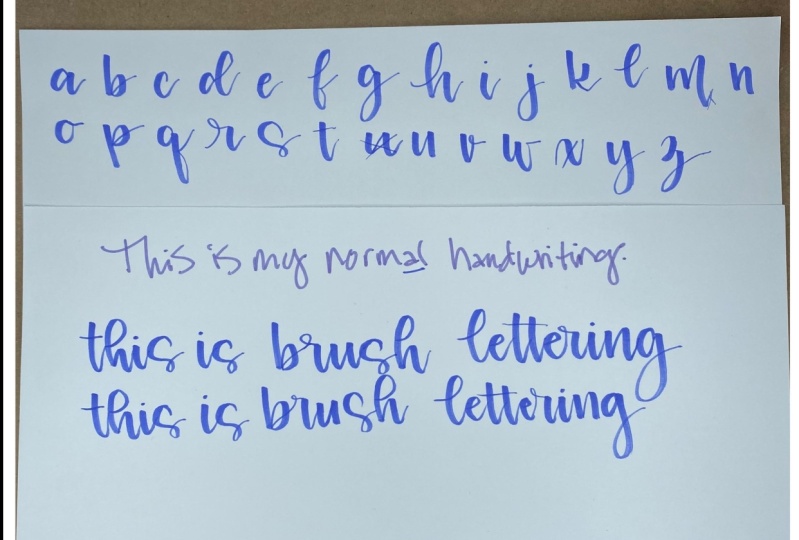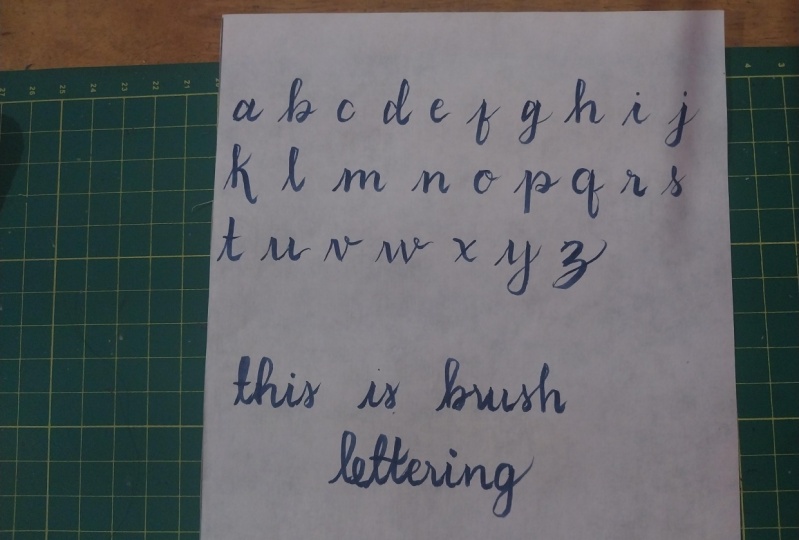
a brush pen, right? And you all know your
basic strokes because you practice them all
the time. I'm sure. You know, your upstroke,
your downstroke, all your turns in your loops, you know all that
you've been practicing. So we're going to take all
those basic skills and we're going to turn them into
your signature font. Most students
aren't empowered to do this because they
think that they're supposed to copy and this
holds back your development. So I say hurry and develop your signature font so that
you can grow and develop. I'm not going to tell you what your alphabet should look like. You're going to decide
that and what's your hand naturally wants to do. But I'm here to help. I'm going to offer suggestions as we go through the alphabet. But in the end, you're going to decide what your
font looks like. And if you've done that today, then you have completed
the class project. Finding your style can be frustrating and even at
times feel impossible. My goal is to help you
avoid all that anxiety by showing you my process for teaching people how
to find their style. By the end of this class, you will have created
your own signature style that will feel natural
and easy to use. So let's ditch the struggle
and go get started.
2. Two Important Things: There are two important
things that I need to tell you about that are at
the core of how I teach. And this is probably going to be the most important thing that I say throughout this
entire course. So the first one is, you will have more
success if you embrace your own handwriting as you
learn modern calligraphy. And number two is creating
your signature font. Instead of copying other
people's lettering, will develop your skills quicker than you could
have ever imagined. Let me quickly
explain what I mean and how it relates
to our lesson today. First, let me talk about
embracing your own handwriting. Since the first time you
picked up a pencil as a child and learned
how to write, your hand was inclined to
move in a certain way, and this resulted in your unique handwriting when you fight your natural inclination, this can bring confusion
and frustration. Second is creating
your signature font. So when you combine the rules of calligraphy with what your
hand naturally wants to do, you create your signature font. And your signature
font is unique to you, just like your handwriting is. Don't get me wrong.
I love how inclusive the lettering
community is and how freely we share our ideas. But there will be a time
for you to borrow from other letters once you have
developed your skills. And this is the
foundation of how I teach and what we are going
to be diving into today. It's time for you to meet Oscar. Oscar is my signature
style, and as you can see, it's kinda wild, little
bit of a crazy guy, but I love him dearly. So the reason I wanted
to introduce you to Oscar is because many, many years ago when I was creating my own signature style, I was in the throes
of frustration as I was trying to learn
modern calligraphy. I have come from a traditional
calligraphy background where everything
had to be perfect and there was an
exact way to do it. And I kept falling back into that and getting really
frustrated about it. And so I would practice
and practice and all these practice papers
would end up in the trash. And so that's where
Oscar got his name. Because Oscar always
ends up in the trash. And I know that super cheesy now because this was
like 20 years ago. But I still would never change it because it's a big part of my personal journey and how
I've gotten here today. One final thing I need to say about Oscar before
we get started is Oscar has changed countless times over the
last couple of decades. And by no means was this refined when I first
created it 20 years ago, your signature font is going
to change and grow to. So today is about
discovery and inquiry, and it's not about perfection. So keep that in mind
and let's get started.
3. Step 1 Part 1, A - F: All right, everyone, let's
get started with step one. In step one, we
are going to take our own handwriting
and we're going to turn it into brush lettering. The first thing I want
you guys to do is to grab your project paper. I'm going to have mine in landscape orientation because I tend to write a little bit bigger and I want to
have room later for when we get to the brush,
brush lettering part. So I'm gonna be using tom
bows twin tone marker. I love the little felt-tip end. So go ahead and grab
your brush pen or your dip pen yet grab
your monoline pen. And at the top of
your project paper, Let's go ahead and write. This is my normal handwriting. And you don't have to write it. Nicer or worst. However you would write today. Writing. It looks about right? So at this point, let's go ahead and put
away our monoline pens. And we are going to grab
our brush pens and we're going to turn our handwriting
now into brush lettering. Let's grab a piece
of practice paper. If you want to set your
project paper aside, you can do that or
if you want to have your handwriting to
look at, that's fine. But grab your brush pen. Now, whichever one
you want to use, Wanted to reorient
myself a little bit. So hopefully you guys can see me writing a little bit better. But what we're gonna do is we're gonna go and we're going to take each of these letters
with our brush pen, and we're just going
to finesse them a little bit until we find
something that we'd like. We're probably going to use several pieces of
practice paper, so just be prepared for that. But let's start
with the letter a. So as you can see, I don't know how you
guys write your A's, but I have a tendency
to write my a this way. And I don't actually
care for that that much. As far as like calligraphy goes. Just the look, I don't
like this kind of a, necessarily for my calligraphy. But let's go ahead and
play with some ideas. So this is how I would
probably normally write it. Zero. Some of my A's are there
isn't a pretty in-line. So maybe try it in a different shape and see if you can find a different
shape that you like. Or if there's another way, there are several
letters like our z, those type of letters
that can be written in different ways also. So try some different
ways of writing that you're a and I want you to just try several different ways. Whatever comes to mind. I was like leaf, but maybe I don't connect the
top and bottom. Maybe I make it really round. In a really round with a tail. There's all kinds of
things you can do. So go ahead and spend a few, a few minutes, whatever. Pause the video if
you want to just write out several A's. And then once
you've written out, I would say three to ten A's. Go back through. I haven't really written
very many that I like, but I'm go back through and my lettering stairwell and see which ones you like
and don't like. So this is still the
point I wanna make two is this is still
my handwriting, even though I'm finessing it a little bit and it's
very sloppy today, which is perfect for
what we're doing. So look at each of your A's and notice which ones you
like and you don't like. So what I like to do
when I'm creating a font is I let her in a certain
way and we'll get to why. You'll understand why
here in a little bit. But I write the
letter a lot of times and how I think I might
like it and maybe some different
variations of that. And then I go through
and pick my favorite. So when I'm creating a
font icon usually have an idea of what I want
the font to look like. So I'll write it, how I think I might
want it to look, but then I'll also write some
that aren't how I liked to. Maybe want to, want
it to look better, you know, sparking my
imagination, I guess. So. Now that we've done that, go through and I honestly, you don't have to
do it like I do, but I cross out the
ones I don't like. Um, I actually like, I don't mind the
disconnection here, but this just came out bad and I just don't
want to look at it. So cross out the
ones you don't like. This one's barely
calligraphy and then circle the ones
you do like an, I actually thought these little chunky guys came out cute. But this one is
definitely more my style. So some of them I don't
do anything with if I'm indifferent and I kind of like this even though
I didn't do the top, how I probably would. So once you've done
that and you're honing in a little
bit on what you like, maybe see what you
like about it. This little chubby
guy is real cute. I like the separation
right here. So just notice those
kind of things. And when this is very
Oscar, this one is. So that's why I'm
inclined to that one. If you need to do a
couple more examples like maybe I do want to see a chunky one disconnected or something like that
with the lower part, the lower I call them tails. The lower tail,
something like that. Maybe try a few more,
but finalize and hone in on which one
is your favorite. And just note that now that
you guys know how this goes, we're going to move a
little bit quicker, but we are going to go
through the whole alphabet together just so that I can show you maybe a few different variations
of each letter. So you're welcome to pay attention to how I'm
doing it or you just go ahead and just dive
in and get started and you can fast-forward
this part if you want to. You don't want to listen
to me. He ever on. So moving on to be my normal be definitely
it looks like that. So I'll rewrite that guy. And then some other
ideas obviously would be to loop this guy, make an ascending loop. I could also create a little
more distance here too. So maybe I push out my
little bubble part of my B. Maybe I do the both. Maybe I do in ascending loop
and also push out to be. Maybe I create my B
with an exit stroke. Or what else would
we want to do? Maybe my B is super
Kirby, super curvy be. And how would I want to, maybe I come back out from the bottom. So all different
things that you can do with your b. I think I'm going
to try one more loopy one. I didn't really like that loop. Maybe we do a little
loop on our B, or we try a big loop for
being a little baby bubble. All kinds of things you can do. Then again, go back through and just note
the ones you like. I actually do. I
don't mind this one. That was kinda fun. This is probably more what
I would be inclined to do. Actually do kind
of like this one. That was kinda fun to do that. Not normal for me, but I liked it and it's
still my handwriting. I'm noting which ones I like. And then I'm gonna
go ahead and pick a favorite and I am having a hard time picking, let's see. I'm gonna go with this
one is my favorite. And now we'll do our C. C
is pretty straightforward. But you could do like a little entry stroke with your c is an idea also how
you exit out of your C. Maybe your Cs are
nice and round. Or maybe I have this. I don't know why I call
it a kickstand sometimes, but I had this tail that kind
of kicks up a little bit. If there was a bike right
here, it could be a kickstand. I don't know why I'm drawing
a bike. I'm so sorry. You guys say anyways,
you get the idea. So how you exit. So you could have different
differences that way. Maybe you put a little
loop on the top of your C, or maybe you put a big loop on your C, something like that. So try several Cs about try
ones that feel normal to, I'm kinda getting a
little bit crazy. Maybe oh yeah. Maybe you're seeing is
very tall and skinny. Or maybe it's like we've
already done really round. So try all those
and then go back through and see which one's
kind of felt more natural. This one definitely
felt natural for me. Probably this one even though I hate that transition
right there, but I would say that
felt really normal. I think this guy is really cute. I actually kinda like,
Yeah, they're fine. I don't really like
any of these with these like little hats on top. And then go ahead and
pick your favorite. So we're doing that. And then we're moving
on to D. So I wrote my d, like that ish. So what are some other
things we could do? Another ascending loop? I don't usually do that. That was interesting. I could do an ascending loop. We could do a little bubble, or we could do a tall
little loop on our D. So those are some variations. We could do a little bit
of an ascending loop. Why do I keep doing that? Sorry guys. A little baby, ascending
loop is an option. We could do a great big one too. Maybe we do a little
tiny circle with a great big ascending
loop, something like that. So some ideas, but go
ahead and do some more Ds. I'm going to try to
do some days I'd actually feel normal to me, Something like that. Okay. Then once you that was a disaster go through and I don't know why I was
trying to do those backwards. That's so abnormal. I really don't like
how that came out. But kinda go through
pick your favorites. And then I'm picking
this guy as my favorite. And probably what I would do, I also do like this guy, although this one,
well, I like them both. But anyways, so pick your favorite and we're just
going to keep on going. So now let's move to E
and E is to me like C, but there are some options. So that's probably what
feels normal for me. You can make it taller, ie you can make a
round, round E. I mean, it could have
an entrance loop if you wanted it to. Something like that. You could do a flat
if you wanted to, if that's your E, That
is certainly acceptable. So do some more 0s until you feel
like you've tried. Oh yeah, You could also do your more classic E and then go back over and
see which ones you like. I think I really like this one that was
actually really fun. This is definitely my normal
ie and felt comfortable. So see what you like and
would like to duplicate, but also what felt natural to. So keep that in mind. This was actually kind of fun. I wouldn't normally do that, and this was actually
kinda fun too. But I would pick this e as far as something that
felt normal for me to do, but also looks fine, looks good then for F. So I did my f like this. But we certainly could
do a more cursive f. Or maybe it's just on the top. Looped on the top. You could do a big
loop on the top. You could do big top, little bottom, and vice versa. I'm trying to think
of more of this type. I don't know, That's
pretty straightforward, but try some Fs, maybe some different ways, but also don't forget do them that feels
normal like this. This feels normal to me. But maybe give them
a little bit of a variation and then go back
and pick your favorites. I definitely like that one. That one is a look that I like. This one was pretty cute
but didn't feel as normal. I mean, I think you can
see I have a pretty consistent f and I
struggle with f's, so I'm going to pick this guy. Oh, we're off screen.
I'm so sorry. So moving up. G is next. Sorry about that You guys.
5. Step 1 Part 3, R - Z: Okay, R, so R has
lots of variations. So I did this are like this, who obviously have the R that
comes up in an upstroke. And then I've seen titers in
my head. That's not right. Tiers down. You could add a
little loop here. So maybe you have
an r like that. You could have a big loop. So try several r's. And you can do. This totally counts too, just whatever you would
feel natural doing. And then again, go back
and pick your favorites. I like all of these, but I would probably pick
these as my favorites. Then pick that one. And then S, I have an unusual S, So this will be interesting,
but you could do, I did it like this. You could do your S with
a upstroke. Whoops, whoo. One of these guys. You could do your S like this. But have it maybe come
around like that. That looks a little funky,
like that one better. But try some different essays. I tend to make my S's like this. See, I'm trying to think of
other S is for you guys. But I guess I should probably
do some normal ones. So do some Ss and then go
back and pick your favorites. I actually like that one. I don't usually do that, but that I could make that happen. Now like this one. This
is the one I would pick. And now let's do, oh, sorry guys, I am
failing feeling. So let's do T and it's
pretty straightforward. It can be this. Give it a little tail. You could cross it up high, cross it down lower. You can do entrance stroke
with it if you want to. You could cross it at an angle. Those types that you can
give it a little swirl. So try a few and then
pick your favorite. I think I tend to do this. And you oh, that's not
close to how I did it, but anyways, I did
it more like this. But you could create some
space here which is kinda fun. You could also stagger it. So maybe your normal
you looks like this. You could try it like with this part higher or vice versa. And then pick your favorite. I think I like that one. I do like that one, but I'm
gonna go with this one. Okay, almost there gang. So V, I did mine like this
and it's kind of wild. A V can also have a real
tight transition like that. Think of your exit stroke. I tend to do mine like that. It could be wider
or tall and skinny. You can loop it. Kinda fun things you could add. So go through, pick
your favorite. I'm not going to fit all my
letters on here clearly. I think I like that one. And then I mean, I don't usually do my skinny
but I'll circle that one. I think that when
it came out good. And the wider, actually
like all of these, they're fine. Okay. One more piece favor. We're on w. So I did mine. Pretty sloppy like this. So obviously we
could do it a lot nicer with a couple
of under turns. You could do some under turns. With a little bit
of a exit stroke. You can loop that exit
stroke like we were just doing with our RVs. You could do straight W's. Again. Oops. Do what feels natural for you? That was my normal. I don't know if you could
tell it was pretty smooth. And then pick your favorite. This one's my favorite. But this one was fun. And then we'll do x. And I had done my end just like that. You can obviously do like
compound curves style x. I'll do that a little better. I think wider or tall. You could do your S curve x. So try a few Xs and then go through and pick the
ones you'd like actually should do more spine and then pick your favorite. I don't have a favorite x, but I guess I'm gonna
go with this one. And then why? I love, why is there so fun? So I did this y
like this. I guess. You could stagger again. So maybe you make
the descending loop a little bit taller, or you make the first
underturn taller. You could give it not a very big tail or you
could do a great big loop. Then we're like that, or do a little baby loop. So try several y's. You could even there isn't any reason why you couldn't
do something like that? Okay. Then pick your fav
should do like that. Those two. I'm going to pick I guess I'll take that one and z. So I know z gives people
a lot of trouble. So I did my Z. One of these ways, which is totally can work. By the way it works best if
you make sure to pick up your pen like you
shouldn't be doing in brush calligraphy. But you also have the x0. That's one of these guys. Sometimes I make
the top smaller. If you wouldn't
normally do this, don't worry about doing it. Sometimes people do
their Zs like that. You could do a z that has
a tail that comes up. Kinda weird. It
looks like a seven, but you could do it and then go through and pick
your favorites. I think if I were
to actually do it, I would do it like that. Okay. So we have done
the entire alphabet. We spent a long time doing it. The next parts are really quick, but hopefully you got
some different ideas on some letters, but make sure that you've gone through and you've circled. You're not only your favorites, but the ones that
felt comfortable. So that's very important
in what we're doing. And then in the next lesson, we're going to bring this all together and create a template.
6. Step 2 - Preliminary Template: Alright everyone, the bulk
of the work is done. Yay. So now next to step to, the next thing we're gonna
do is we're going to create a preliminary template is what
I usually like to call it. And there's two ways to do this. One is you can take a piece of marker paper
or tracing paper. That's what it's called.
And you can trace your favorites and create your lettering
template that way. Or if you're a more
experienced letter, I don't tend to do this, but I definitely
highly recommend it for anyone who's
either never done this before or new to lettering or even my
intermediate students, I have them do this. So unless you are more advanced
or a professional letter, I suggest that you copy, essentially trace the
letter that you made with some sort of a marker
paper or tracing paper, something like that that you can see through is what
we're going for. If you're a more
experienced letter, if you are a professional or advanced or
anything like that, I don't tend to do that. Do that way. You could also just
have another piece of paper and just look at what you did if you're good at
duplicating your letters, you can also just
look at what you did and put it on the template. So that is the next step. It's super easy. Obviously, find the letter that you
indicated as your favorite, and then you will just
literally trace over the top of it and recreate
that letter again. There's a for me, there's my B. And if it doesn't come
out perfect, that's okay. You can try again,
just scooch it over x that one out and
do the next one. But go ahead and do that for
all of your letters until you have the whole your
whole template ID letters. And then I will meet you at the next step where
we will refine.
7. Step 3 - Analyze & Adjust: Okay, next step is to
analyze and adjust. So we've created
our preliminary, we'll call it a template
letter template. And again, it doesn't have
to be perfect at this point. So I see plenty of things that aren't perfect about the shape of my
letters and stuff. What I'm trying to do is get
an overall overview of what this lettering font is
going to look like. We're looking for
continuity in your letters. So now is your opportunity to go through and see if you
want to make any changes. So for instance,
when you're looking at what I've written
here for myself, I'm noticing that I've
got a loop to my D, but I don't to my
B-H loop to my age, don't to my k due to my l. So there's a little bit
of variation in that. A great way to test
out the cohesion of these letters together
is two, write something. I usually like to write several words so I can make sure to capture all the letters. But for this class,
just for fun, let's go back to our, this is my normal
handwriting project paper. On just below this, what
we've already written, let's write a new
sentence that says, this is brush lettering. So I'm in a letter with you. This is brush lettering. So let's get started and it doesn't again,
have to be perfect. We're just essentially we're testing this out is
what we're doing. And I'm hoping you
guys are seeing that. For those of you who
are a little newer, I know you experienced
people will know. When you are lettering. You should take probably
at least four times. I kinda say is the goal. I just screwed that
up because I'm talking, I'm gonna go with it. You guys, this is gonna
be messed up. We know it. Anyways. It should take you at
least four times as long as a goal to letter. Like lettering,
calligraphy, letter. I'm saying this so weird. Then it would for your
normal handwriting. So this should take us just a minute or
two to actually do. The more experience you have, I always have to try
to slow myself down. The more experience you have, the faster you'll go. Obviously, let her. My biggest thing is I misspell things all the
time. It's the worst. My hand there it is. Now, if I was really sticking to this letter or
this lettering font, I might ask myself. So I think if if you notice, I noticed this N, I didn't put a tail on it, which could actually work. I didn't with the you either. So you can make artistic
choice to not connect letters. And so if this was
truly going to be my letter for this font, I would not have put
a tail right here. So, or one right here, which actually I think probably would've looked interesting. So I might stop the video real quick and just let
her that out for you guys so you guys
can see the difference and maybe some of you have
already made that choice, but I'll go ahead and do
that just really quickly before we dive into
this next part. So I let her that again and didn't connect the UE or the n. And I actually think
it looks great. So I may adopt that for
this lettering font. May make that decision
to go ahead and do that and other things you
want to be looking for. Because again, we're we're doing what's comfortable for us. My normal L isn't looped and I'm fine with this type of
a b that I've created. And even my kay, maybe I want
to change this lettering up a little bit and maybe my
L's don't have loops also. So these are the decisions
that we're making now around this lettering is we're going to refine it a little bit more. Now we've had a
chance to see this. Now. Different letter
combinations obviously could make some things look good and some
things not look so good. So you might want to
test it out some more. But that's what this next phase of spores we're going to kind of think this through and
see what we might adjust. So I'm actually going to keep my non-connected u
and n with this font. But I'm wondering if I do like, I do like the Looped age, but I'm wondering if
I might like a D. That's more like maybe that makes sense to
me and my brain. And even the H and L. I actually, I actually
think that looks fine too. So maybe I don't or I could not loop any of
these because again, in my normal handwriting, I don't loop that. But am I right now you're
asking yourself, okay, I've created this letter
and I do think it's pretty, um, does it feel normal to me? So did it feel normal for me to do my age like this or not? So this is where you
make those decisions and really hone in on
what feels natural. And you may even go back to, now, That's why you
keep these around. But you may now go back to
this paper and say like, okay, I picked this L, but I did also like this l. So maybe I'll try this
one and then you can redo your lettering font, but with these other letters
and test it out again. So this is the process of
creating a letter font. You're going to just basically barf as much information
onto the page as you can. Really sort through it. See what you like, see
what you don't like. Go through and figure out
your yeses in your nose, refine it down to
your favorites. Get your favorites together
so you can see them together. Practice them a few times, or at least a couple of times. I usually like to
write, like I said, several words that
contain all the letters. Sometimes I don't worry about Z. If I'm being honest. If as
long as I'm happy with the z, I might try it and connect
it to another letter, but you just use it so rarely. Honestly, it's your phone. So if you decide this is
your final font and then you have something that you're creating and
it has a z in it, and you put it in there
and you don't like it. It's your font. Updated. Oscar has been changed
tons of times. That's totally your prerogative. But now we've tested it out. We've got our lettering. I've thought it through. I might try to change out a couple of letters
or something like that. Rewrite some lettering. But basically I've
refined it down. Let's pretend that this
is what I stuck with. That takes us to the next step.
8. Step 4 - Final Steps: Okay, So you have tested it out. You've refined your lettering and maybe made some adjustments. Tested it again and
ensured that it is the font that you
want to go forward with. So really, some of
the last things to do is I would love for you and I always do
this to name your font. So as you guys know, Oscar is my signature font. I have lots and lots of fonts and they all deserve a name. So that would be the next thing I would love for you to do. And usually what I do at
this point, like I said, I may make adjustments
or tweaks, but this font is done. So what I like to do just
to finalize everything is I will put it on a new piece
of paper with its title, name, with its name, and then put the date on it too. And then it's complete. You could also do the next
step which a lot of us do, which is to digitize them. But this class isn't about that. This class is about
creating the font. So I'm not gonna get into that, but that is essentially the
steps for creating a font. So congratulations,
you've just created your first signature font that hopefully has a name
and a date that it was born. So I hope that you have
found this to be valuable. And I really think that
this is a great tool for everyone to use and continue
to grow there lettering. Another quick note. These, all these pages where we do some experimenting
as we talked about, there was other letters in
here that I really liked. I liked to hang on to these
for awhile and keep them altogether so that when I
am creating new fonts are, or want to create a new font, I can pull out half a dozen
or so of these with a lot of that already have
experiments on them that I can kind of go off of when I'm
ready to start a new font. So that's always a little helpful tip
that I like to do it, it kinda saves time in the end, but usually when you're
creating a font, you have something in mind
that you're wanting to create. So that's the goal
of it and a style. And it's usually something different than you've
already done before. But still, I, I really
feel like these can be great inspiration
for other fonts, so I keep them around
for a little while. You could scan them into
your computer and just keep them there if
you don't want to keep the paper around. But anyways, so this is your class
project creating your font. The next thing that
we're going to talk about is what to do with